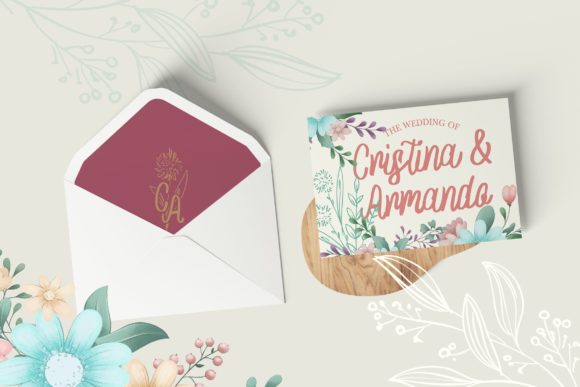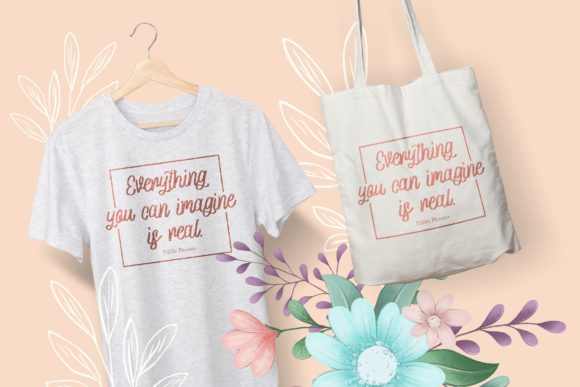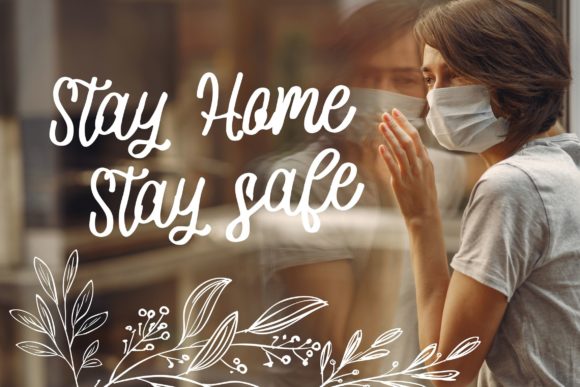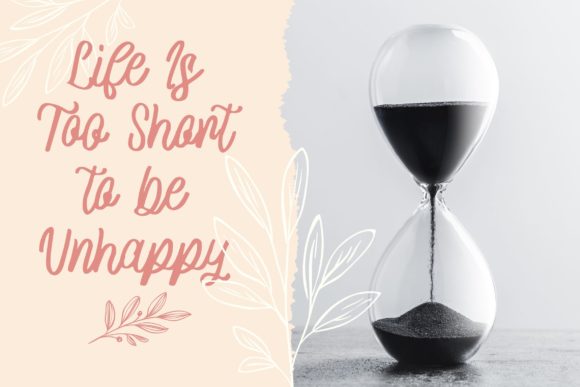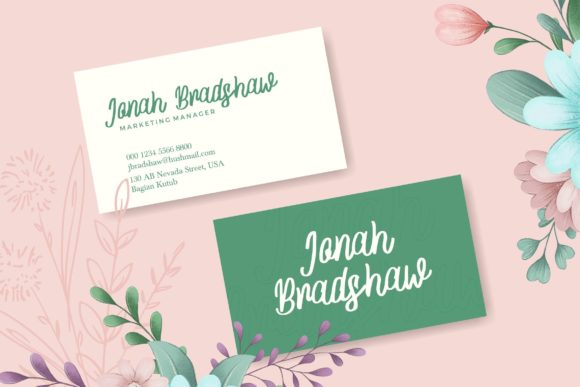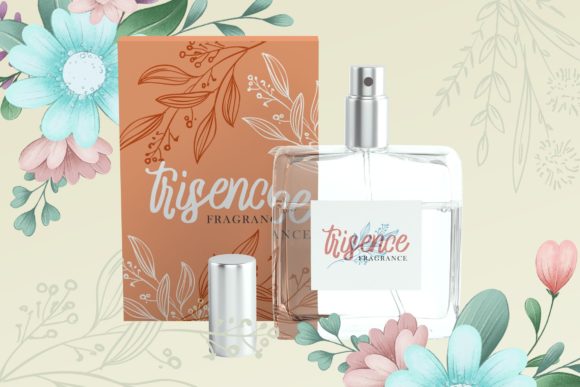
Unlock the Magic of Handwritten Luxury
Have you ever been brainstorming a creative project, pouring your heart and soul into it, and suddenly, you know exactly what’s missing – a touch of elegance and sophistication? That’s where the Bellaswanova Font comes in, a beautiful and light handwritten font that will elevate your design project to new heights.
Bellaswanova Font is more than just a font – it’s an experience. Its unique feel and stunning impact will add a luxury spark to any design project, making it stand out from the crowd. Whether you’re a seasoned designer or a creative enthusiast, this font is a valuable asset to have in your toolkit.
With Bellaswanova Font, you’ll be able to bring a touch of personality and whimsy to your designs, making them truly unforgettable. So, why settle for ordinary when you can have extraordinary? Get ready to unleash your creativity with the Bellaswanova Font.
Bellaswanova Font Key Features
- Font Family: Bellaswanova is a unique, hand-drawn font with a mix of elegant and whimsical elements.
- Character Set: Includes a wide range of characters, including uppercase and lowercase letters, numbers, and punctuation marks, making it suitable for various applications.
- Unique Characteristics: Features intricate details, swashes, and flourishes, adding an artistic touch to designs, making it perfect for wedding invitations, book covers, and other creative projects.
Bellaswanova Font Review
Overall, I’m quite impressed with the Bellaswanova font. ✨ Its unique blend of elegance and modernity makes it a great choice for a variety of design projects.
- ✨ Beautifully crafted letterforms with a touch of sophistication.
- ✨ Excellent legibility, even at smaller font sizes.
- ✨ Suitable for both body text and headings, making it a versatile font.
- ✨ Supports a wide range of languages, including Latin, Cyrillic, and Greek.
- ⚠️ Limited font weights, which might make it less suitable for designs that require a wide range of weights.
- ⚠️ Some users may find the font a bit too ornate for certain design projects.
Overall, I think the Bellaswanova font is a great choice for designers who want a sophisticated and elegant font for their projects. While it may not be the best fit for every design, it’s definitely worth considering for the right projects.
The Bellaswanova font is ideal for creative and artistic projects. Use it for:
- Typography-heavy designs.
- Brand logos and identity designs.
- Invitations and event materials.
- Editorial and publishing projects.
For the most striking results, pair the Bellaswanova font with bold colors and creative layouts.
Alternatives to Bellaswanova Font
The Lobster font is a cursive, handwritten font that is perfect for creating a unique and elegant look. It is ideal for use in invitations, wedding stationery, and other special occasions where a touch of sophistication is required.
Compared to Bellaswanova Font, Lobster has a more classic and traditional feel, while Bellaswanova has a more modern and playful vibe. Lobster is also more versatile and can be used for a wide range of applications, while Bellaswanova is more suited for digital use.
The Pacifico font is a beautiful, elegant script font that is perfect for creating a sense of luxury and sophistication. It is ideal for use in high-end branding, packaging, and advertising where a touch of elegance is required.
Compared to Bellaswanova Font, Pacifico has a more refined and polished feel, while Bellaswanova has a more playful and quirky vibe. Pacifico is also more suitable for use in print materials, while Bellaswanova is more suited for digital use.
The Great Vibes font is a fun, energetic script font that is perfect for creating a sense of excitement and enthusiasm. It is ideal for use in social media, advertising, and other digital applications where a touch of playfulness is required.